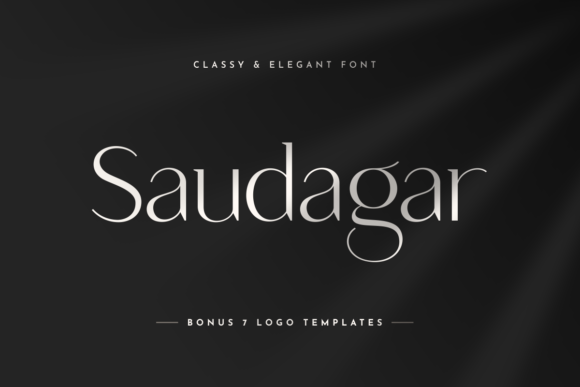
Introducing Saudagar Font, an exquisite creation from the artisans at Sensatype, designed to bring a touch of modern calligraphy charm to your creative endeavors. This captivating serif font family exudes both elegance and playfulness, offering a visual treat for those seeking a distinctive aesthetic. With its carefully crafted uppercase and lowercase letters, alluring numerals, and an array of alternates, Saudagar promises versatility and boundless possibilities for self-expression.
Step into a world of visual intrigue with Saudagar, a font that instantly elevates your designs. Let its sweeping strokes and delicate curves add a touch of sophistication to your branding projects, conjuring an image of timeless elegance. Enchant your wedding invitations and cards with its graceful presence, transforming them into keepsakes that radiate love and joy. Saudagar seamlessly adapts to various design needs, effortlessly adding a touch of whimsy to your creative undertakings.
Unleash your inner artist and let Saudagar inspire your next masterpiece. Its versatile nature makes it the perfect companion for a wide spectrum of projects, from personal journaling to captivating social media posts. Its unique character shines through effortlessly, lending a touch of magic to every word you write or design you create. With Saudagar, the possibilities are endless; let your imagination soar and witness the transformation it brings to your creative pursuits.
Saudagar is more than just a font; it's an experience, an invitation to embark on a journey of visual storytelling. Its carefully crafted details and seamless flow create a symphony of elegance, captivating the eyes and leaving a lasting impression. Elevate your visual communication, whether it's through branding, invitations, or personal projects, with the allure of Saudagar. Experience the magic of modern calligraphy and let your creativity flourish.